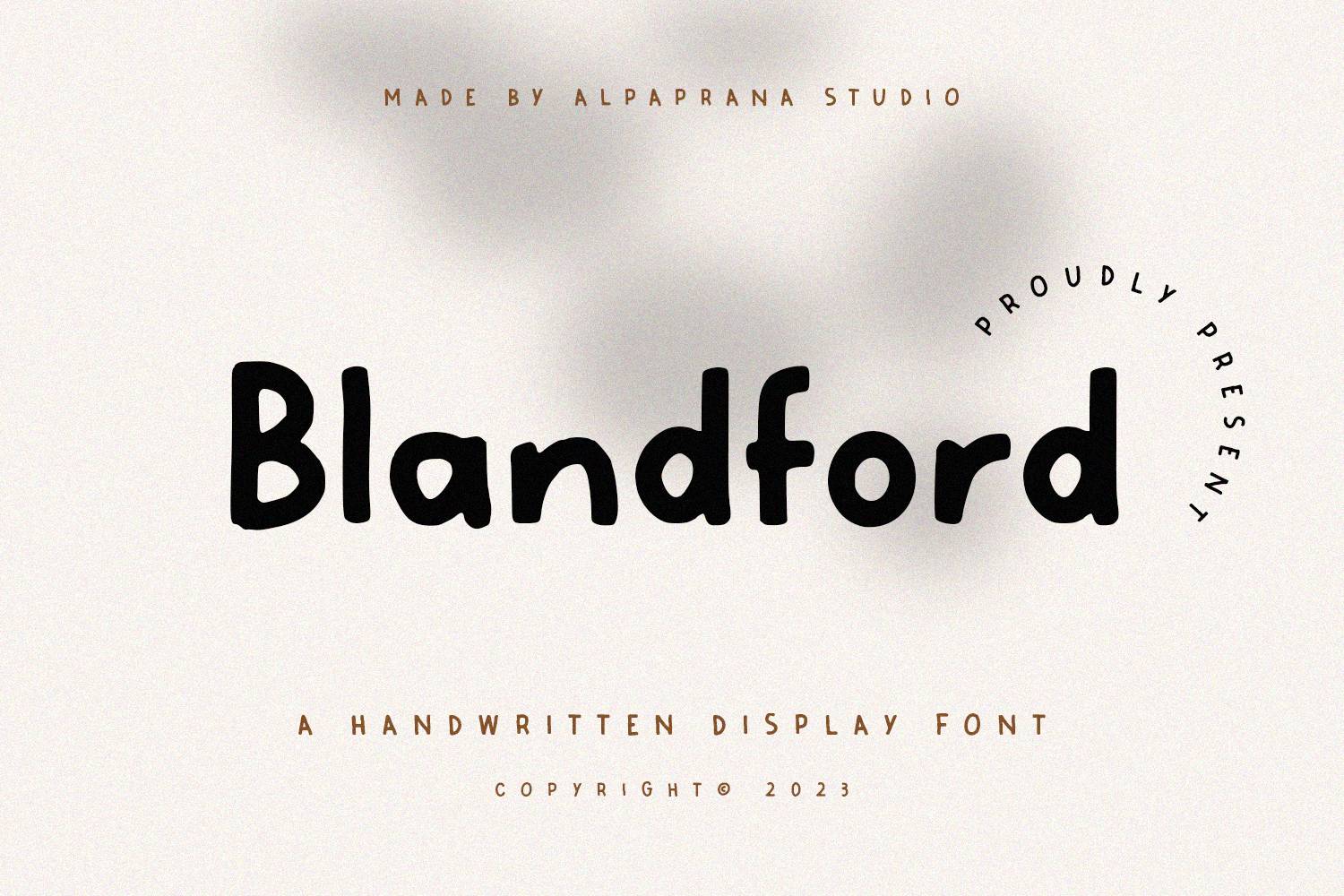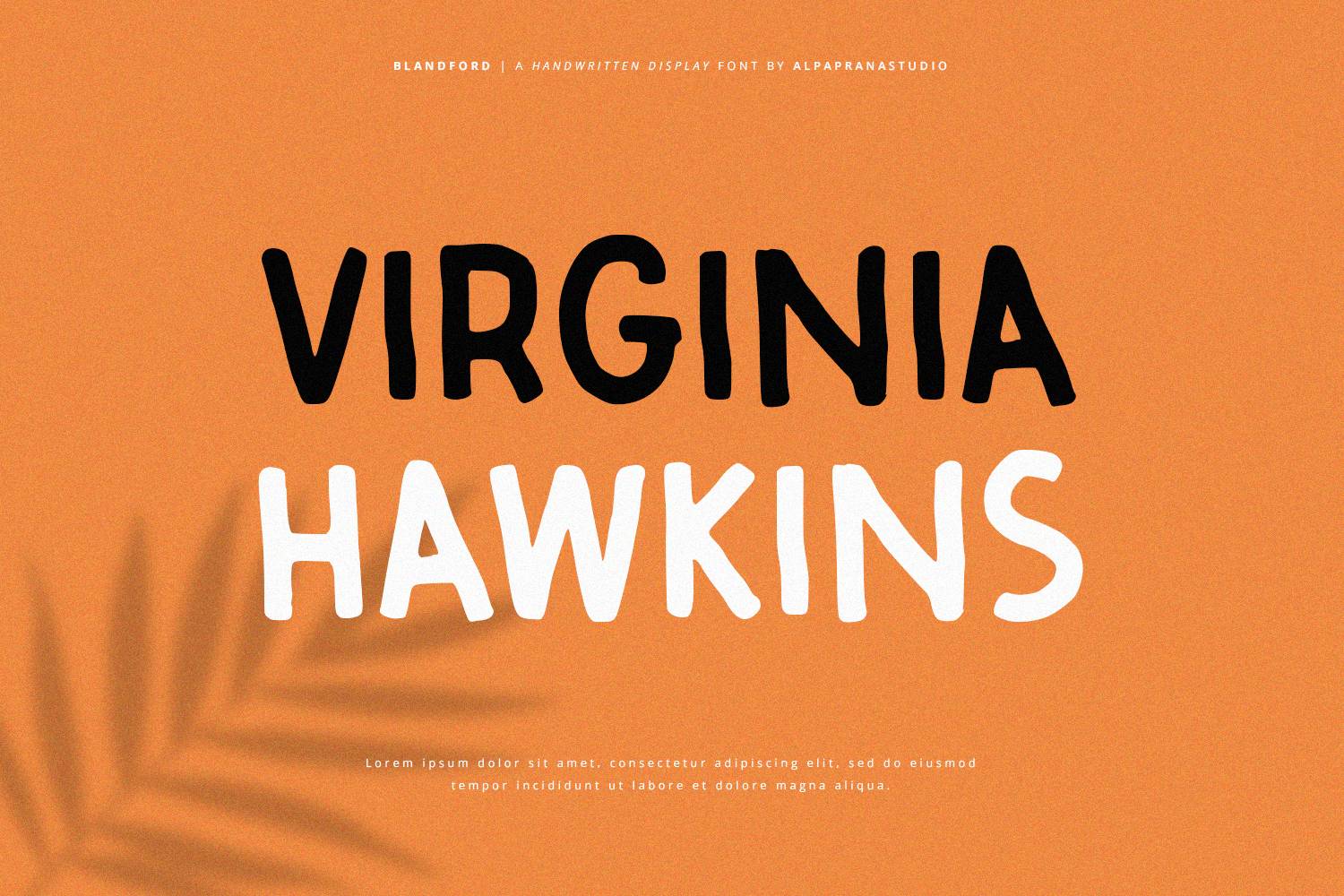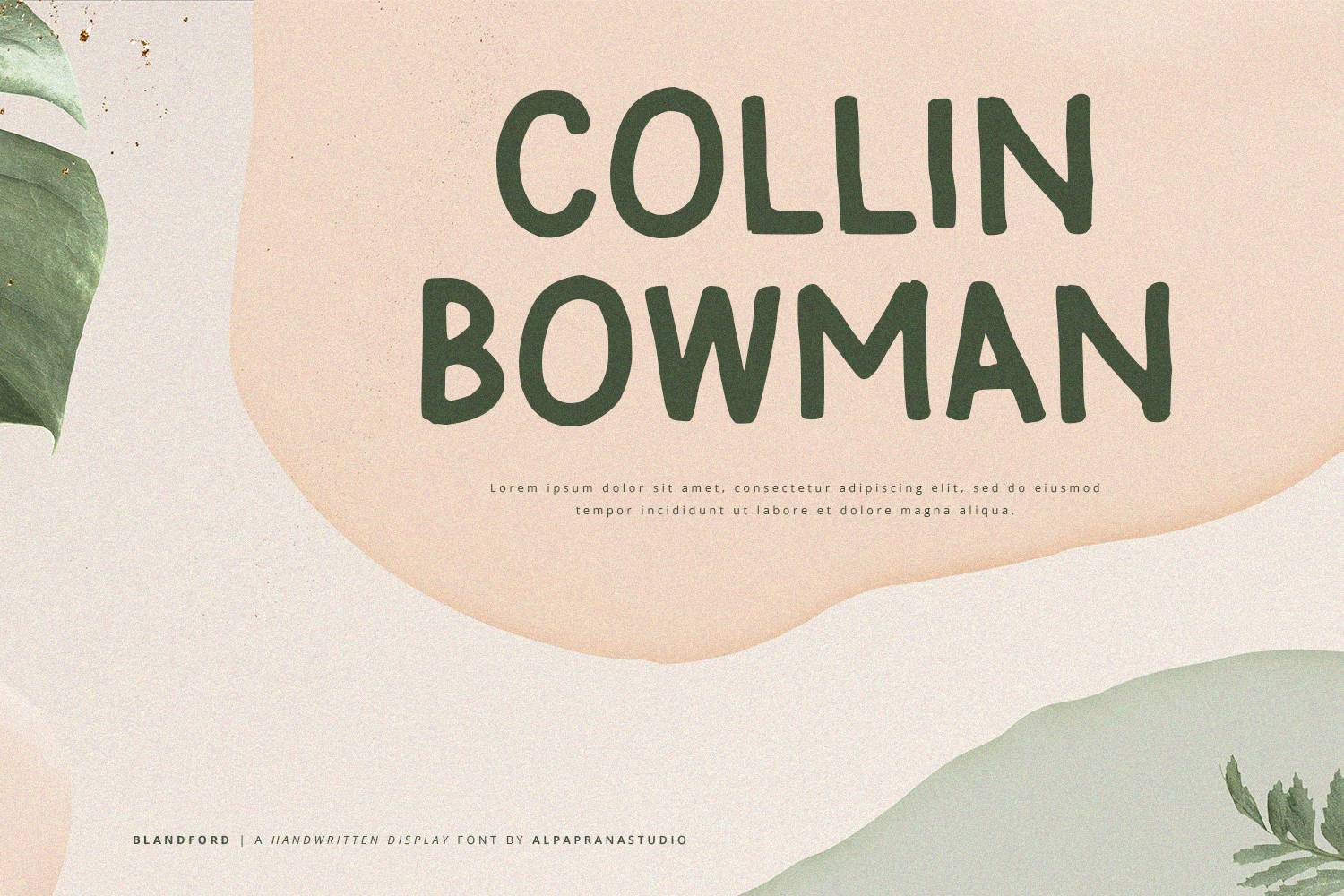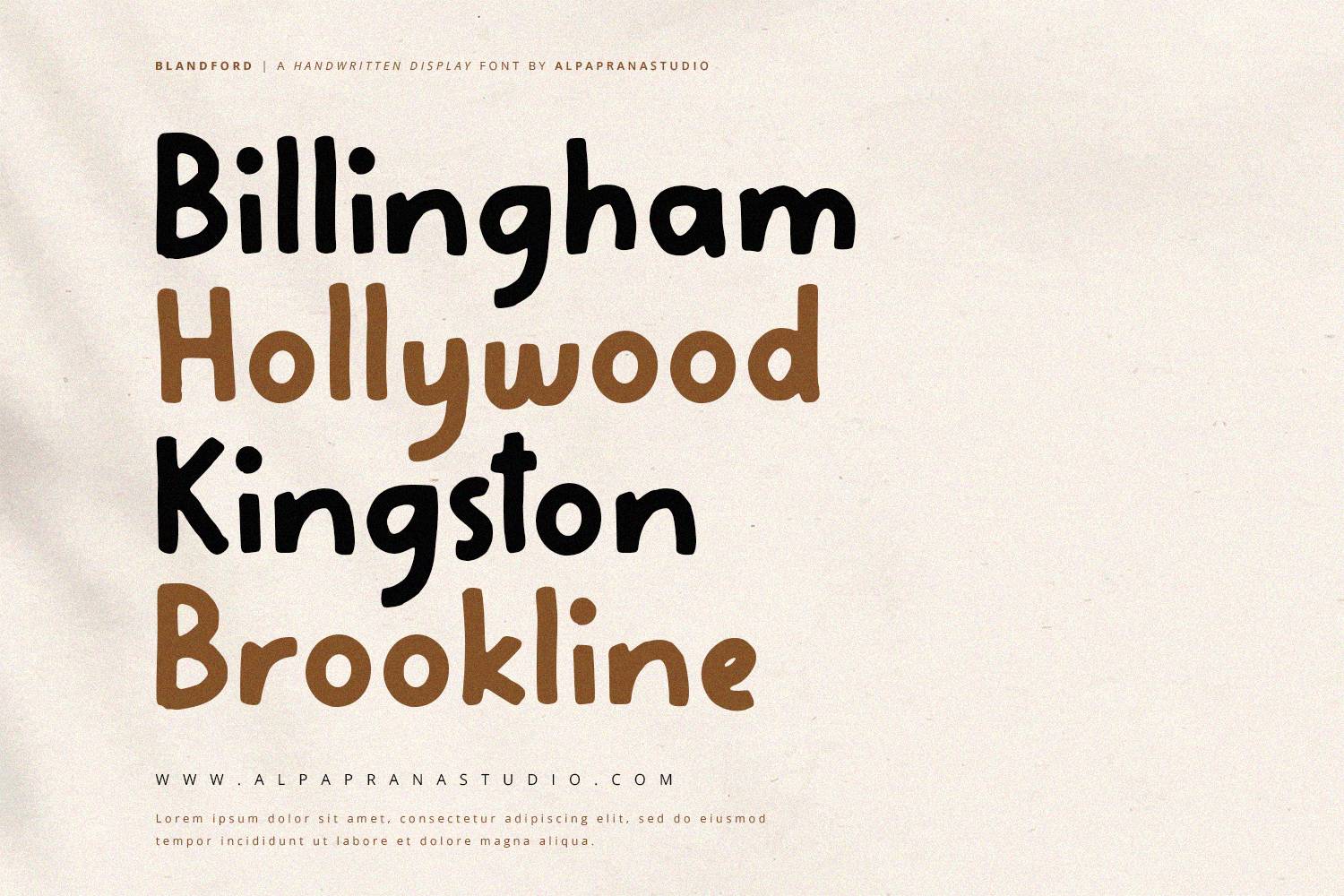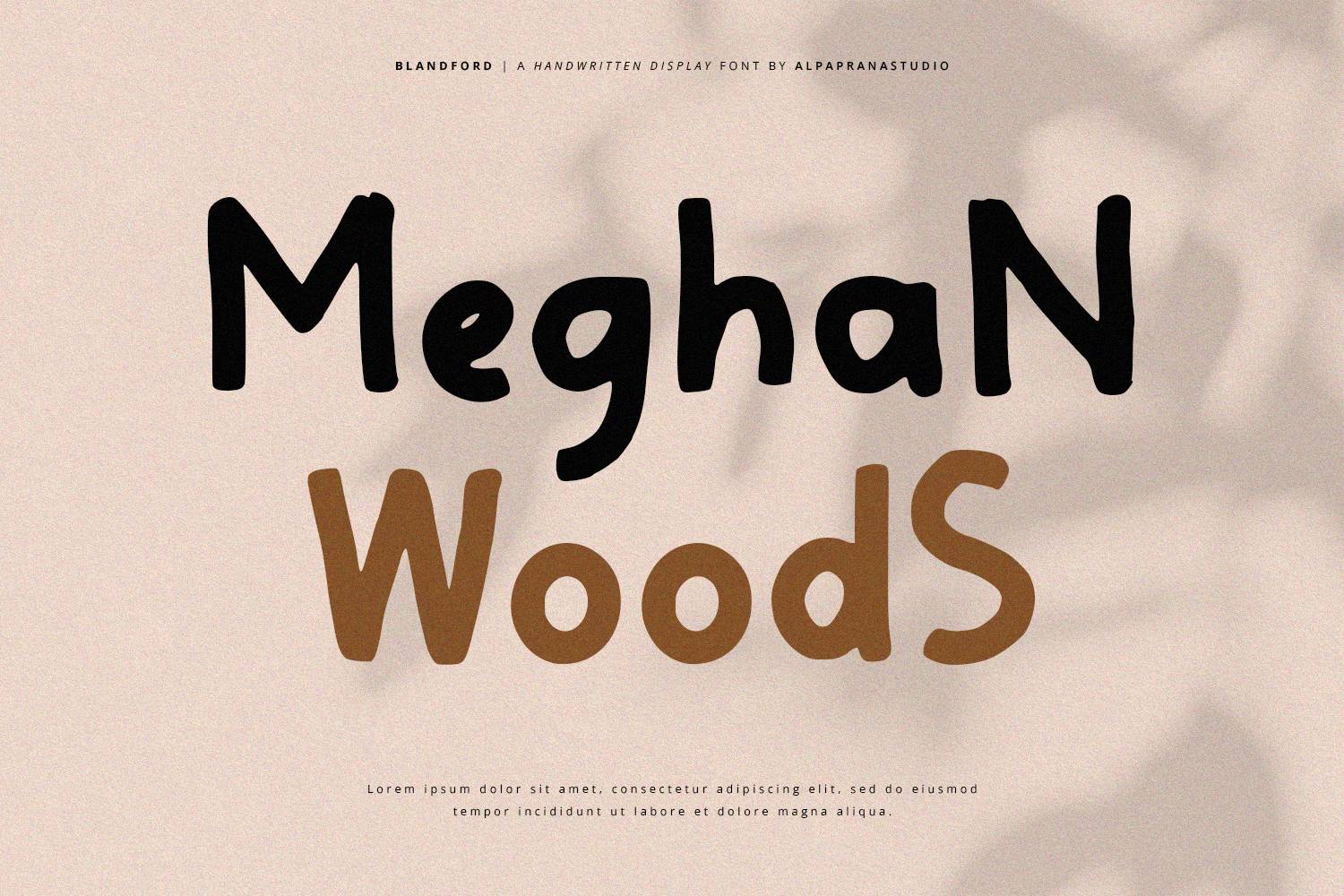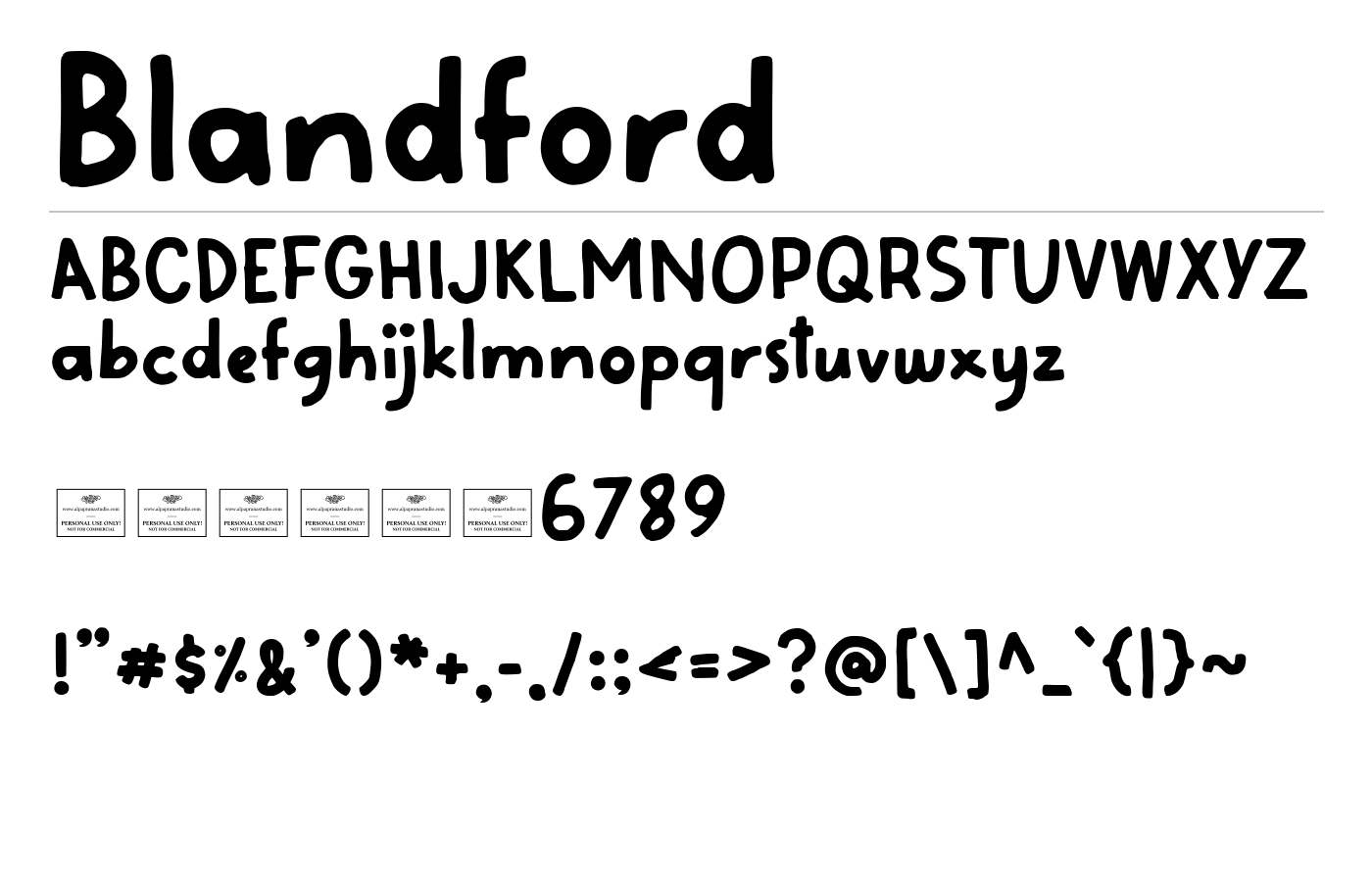
Blandford is a playful and casual handwritten-style sans serif font featuring rounded, slightly irregular letterforms that convey a friendly and approachable feel. Its medium weight and moderate x-height make it versatile for informal headlines, invitations, and creative projects where a warm, personal touch is desired. This font works well in designs aiming for a fun, handcrafted vibe, perfect for children’s books, greeting cards, or brand identities that want to appear inviting and cheerful.
Blandford Font
About Blandford Font